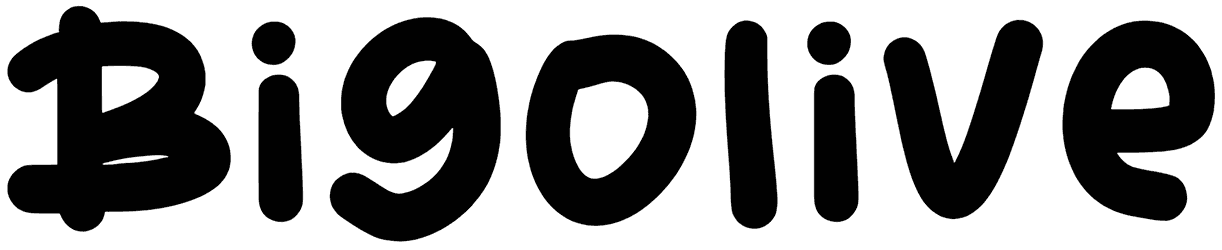
Bigolive Font
Bigolive is a cartoon font that has a face that is both adorable and playfully humorous. This font is great for use in a broad number of applications, such as logos, blog headlines, posters, invitations, stationery, and other kid-oriented stuff.